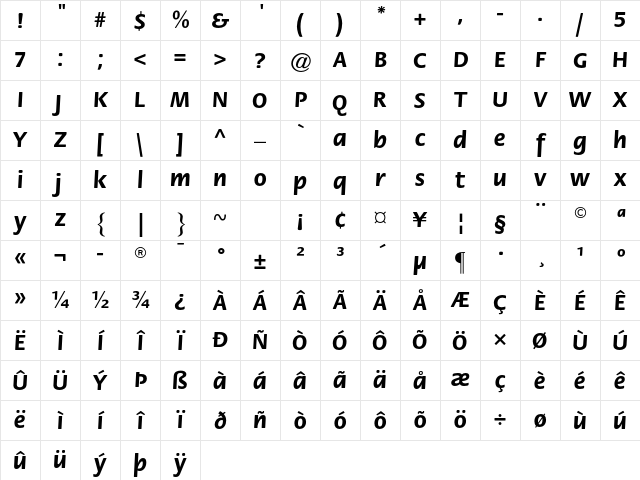
ITC Flora Std Bold
Designer: Gerard Unger
Design Context for ITC Flora Std
ITC Flora Std is a composed and adaptable typeface that performs quietly and consistently across a wide range of design contexts. Its bold stroke weight gives it real presence on the page.